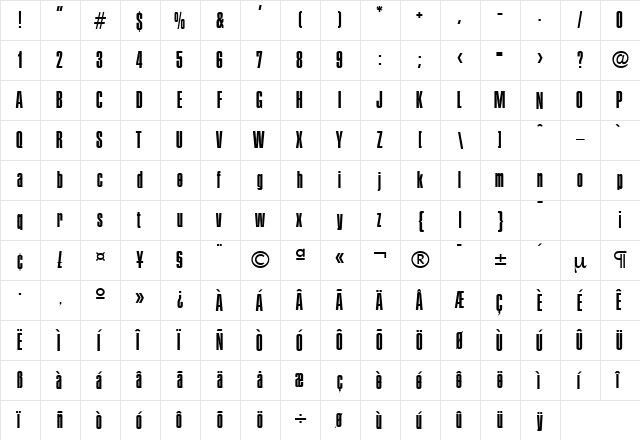
Plakette-Serial Regular
Design Context for Plakette-Serial Typeface
Plakette-Serial offers clean, dependable letterforms without strong stylistic allegiance, making it a practical choice for designers who need flexibility.